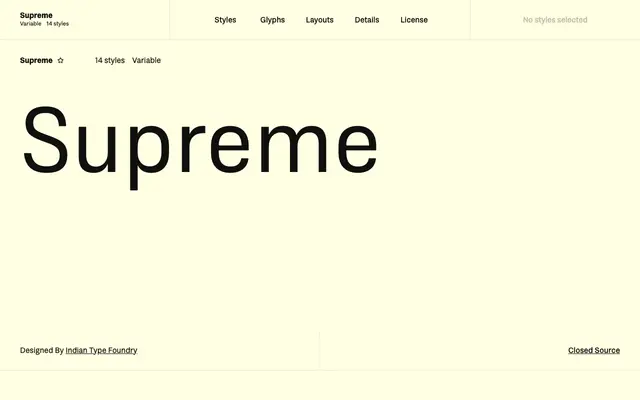
Supreme
A constructed geometric sans from Indian Type Foundry with monolinear strokes across seven weights and matching obliques, released free via Fontshare.
Designed by Jeremie Hornus and Ilya Naumoff, Supreme draws on the engineered sans tradition with straight-sided letterforms and monolinear strokes that recall technical lettering conventions. The family spans Thin to Extrabold in 14 static styles plus two variable fonts, with a moderate x-height that gives the ascenders and descenders room to breathe. Originally associated with engineering and technology branding, the style has found renewed use in screen typography and editorial work.
Described explicitly as a constructed-style sans serif with monolinear strokes and straight-sided letterforms, placing it firmly in the geometric/engineered sans tradition rather than humanist or grotesque.